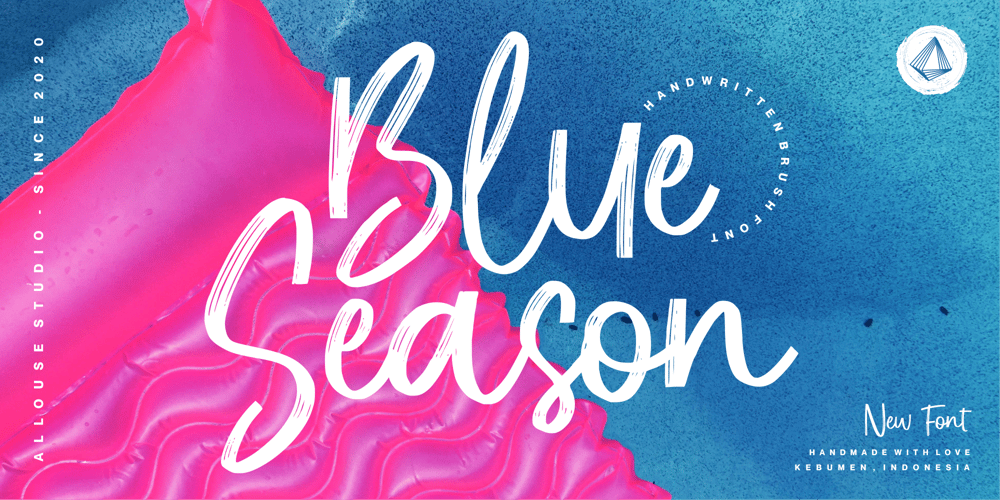
Blue Season Font Family was designed by Fachrizal Yusuf and published by Allouse Studio. Blue Season contains 1 styles and family package options. Proudly Presenting, Blue Season a Handwritten Brush Font.Blue Season is perfect for any titles, logo, product packaging, branding project, megazine, social media, wedding, or just used to express words above the background.Blue Season also come with Multi-Lingual support.Enjoy the font, feel free to comment or feedback, send me PM or email. Thank You!